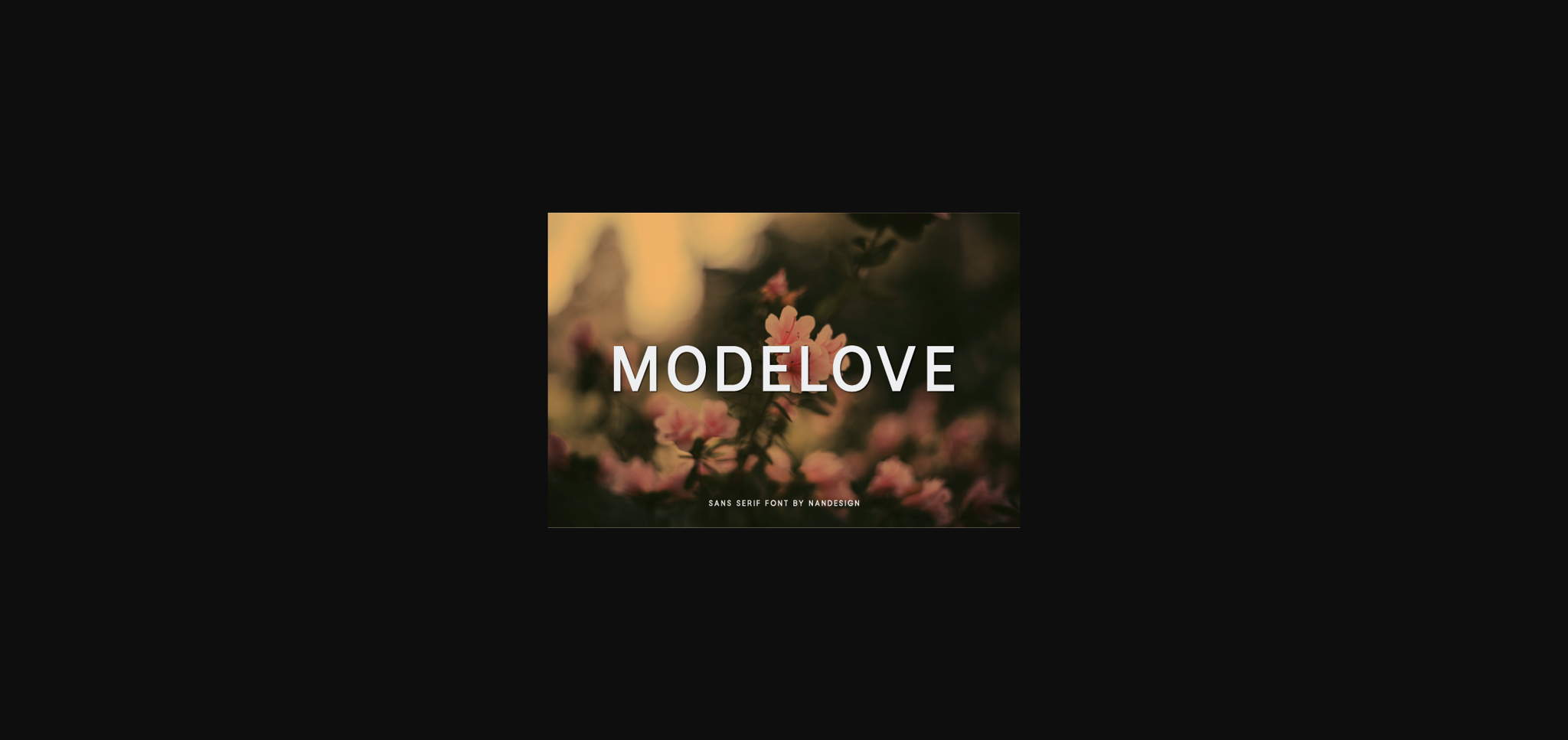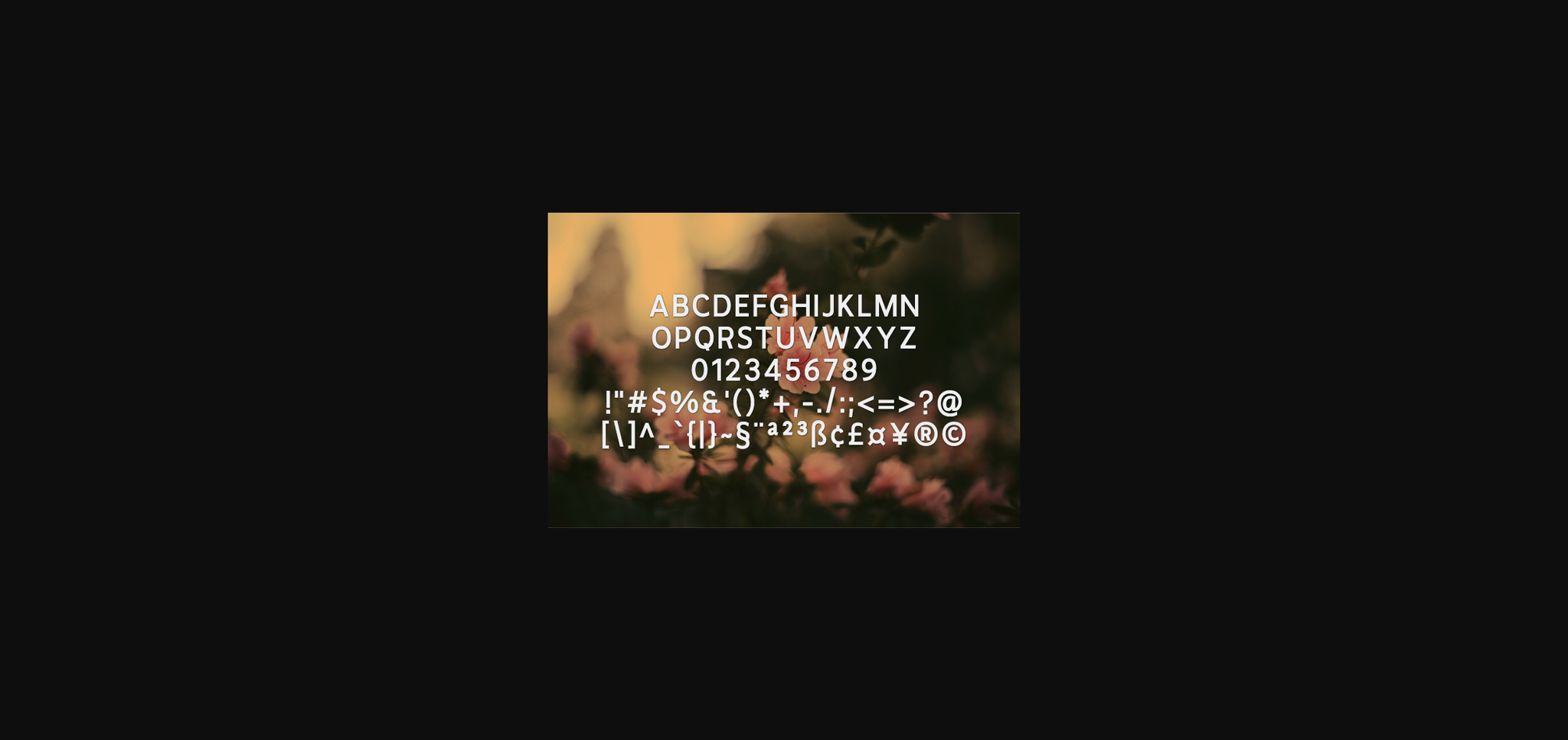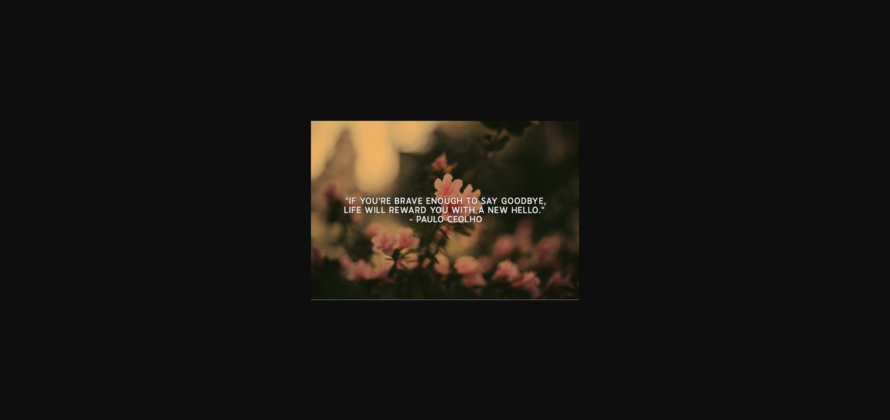
HomeSans Serif FontsModelove Font Sans Serif Fonts Modelove Font FacebookXPinterestWhatsApp 1 of 5 ... Modelove Font Poster 2... Modelove Font Poster 3... Modelove Font Poster 4... Modelove Font Poster 5... About Modelove Font Modelove is a minimal, yet sweet sans serif font. Suitable to a wide variety of designs , Modelove has the potential to become your favorite go-to font, no matter the occasion! DOWNLOAD NOW People also explored Septillion Font Geomatrix Font Elmono Font Maghdela Font Fledermaus Baby Cute Font Saint Paddy Dings Font Black Parade Font Slot Machine Font 522 0 TagsModelove Font Previous articlePeinbolf FontNext articleDelvith Font LEAVE A REPLY Cancel reply Comment: Please enter your comment! Name:* Please enter your name here Email:* You have entered an incorrect email address! Please enter your email address here Website: Save my name, email, and website in this browser for the next time I comment. Personal Use Free Wanita Cantik Personal Use Free Read more about this font Sellena Brush Font Personal Use Free Read more about this font Rookie Mastering Personal Use Free Read more about this font Leorio Personal Use Free Read more about this font BLOG How to Install and Use Fonts on Windows, macOS, and Web Projects How to Install and Use Fonts on Windows, macOS, and Web Projects Fonts are a crucial part of design and branding. Whether you’re designing a... The 10 Best Handwriting Fonts to Add Personality to Your Designs Best Fonts for YouTube Videos: Make Your Thumbnails Stand Out Top 10 Handwritten Fonts That Elevate Your Designs